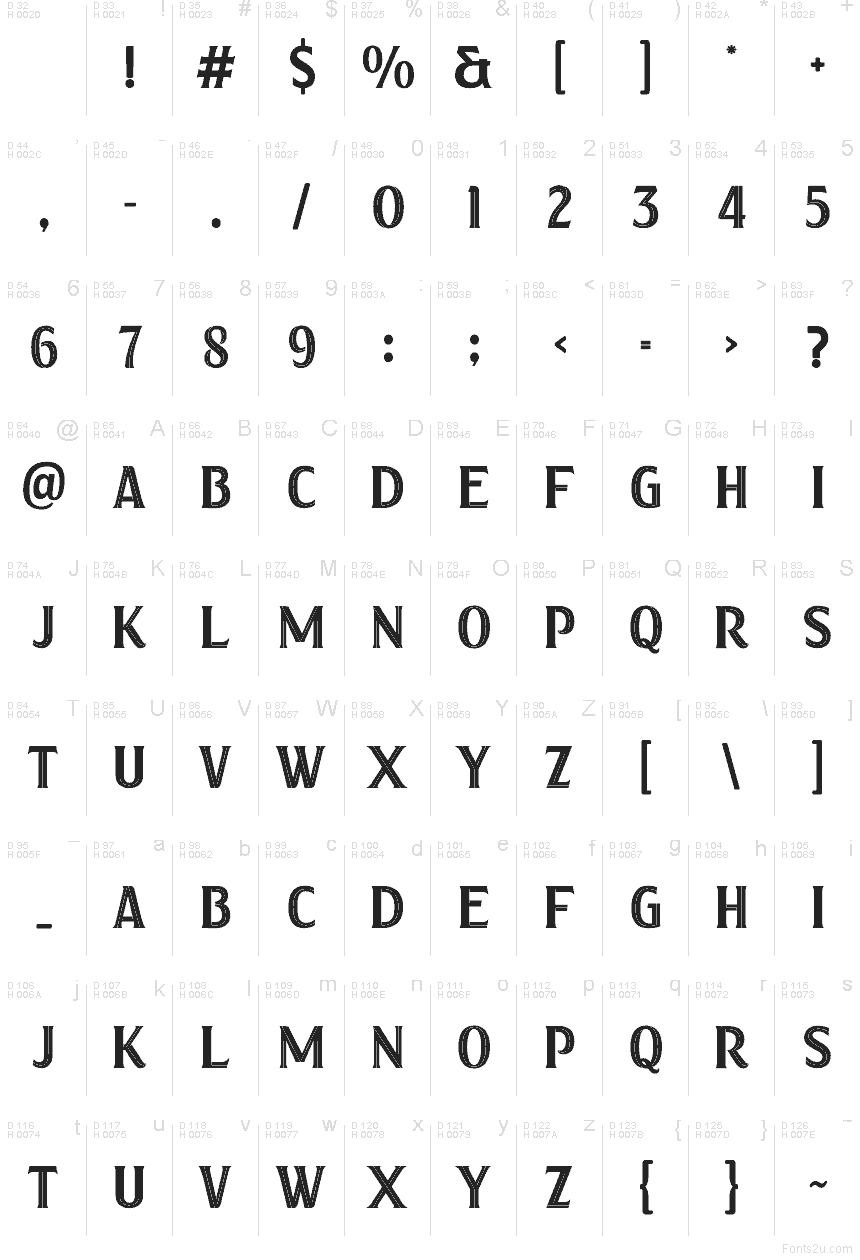
Catalunya Inline, by Trequartista Studio, is a free inline display font with a tall, high-contrast look that leans toward classic fashion lettering. The letters feel poised and theatrical, pairing slim inner lines with broad outer shapes so the font reads as elegant first and decorative second.
It fits branding for boutiques, restaurant identities, magazine covers, poster headlines, and packaging where a little old-world glamour helps set the tone. As a free font, Catalunya Inline also works well for title cards, monograms, and short cover lines, since the layered strokes give even a few letters a rich, engraved presence.
Catalunya Inline by Trequartista Studio